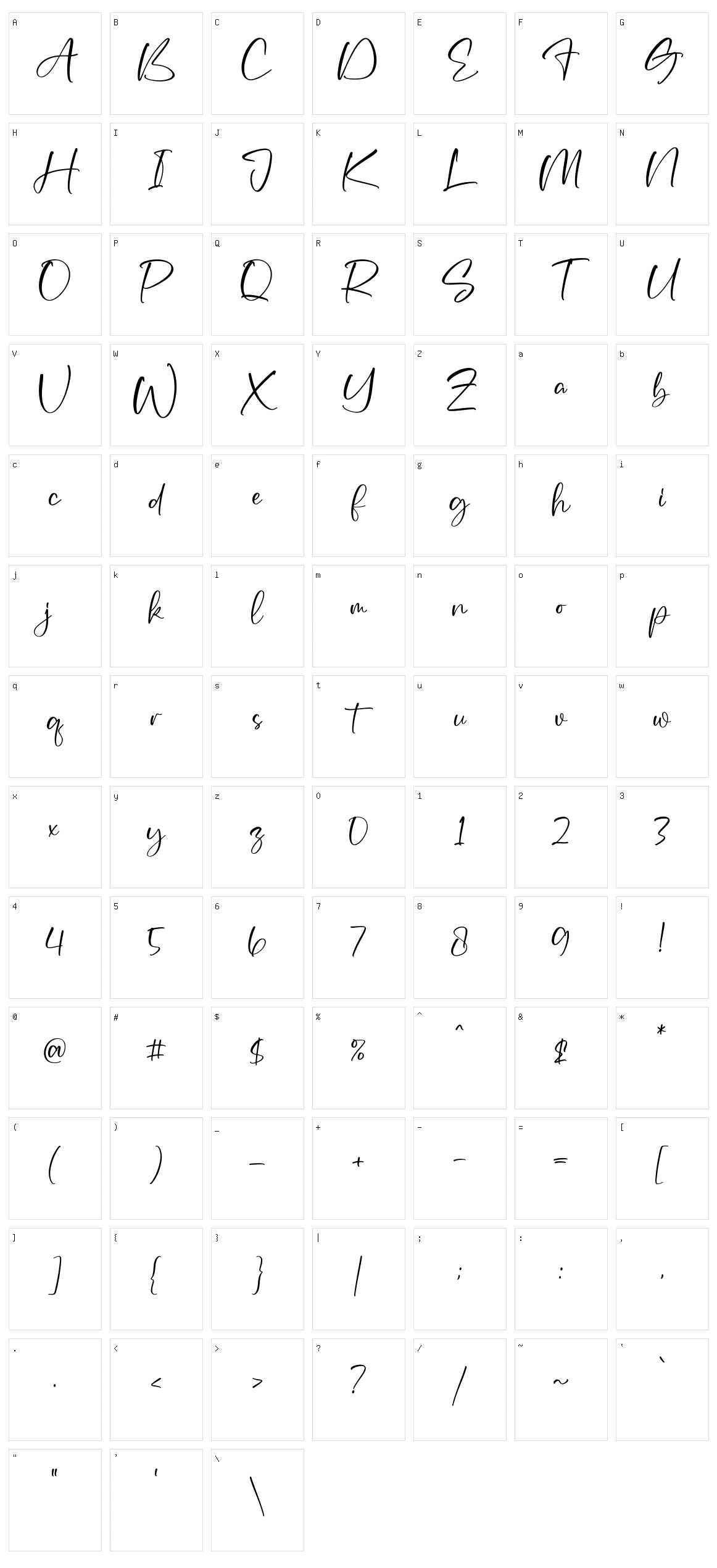
The free font Jack Masson is carefully designed by Perspectype Studio - Letterena.com, showcasing a thoughtful balance of creativity and usability and falls under the Script font style. When you download the ZIP file, it contains only 51.71 KB of font files, making it lightweight and quick to download. Please review the license details below to understand permitted usage and distribution rights. If license information is not available, we recommend using this font for personal projects only or contacting the author directly for commercial usage permissions.